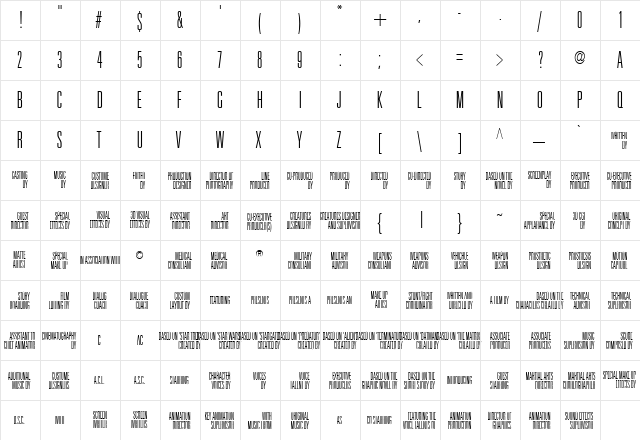
Universal Accreditation Regular
Design Context for Universal Accreditation Typeface
Universal Accreditation is a composed and adaptable typeface that performs quietly and consistently across a wide range of design contexts.
Pro Tip: Use Universal Accreditation in both headline and body roles to test its range before committing to a single application.